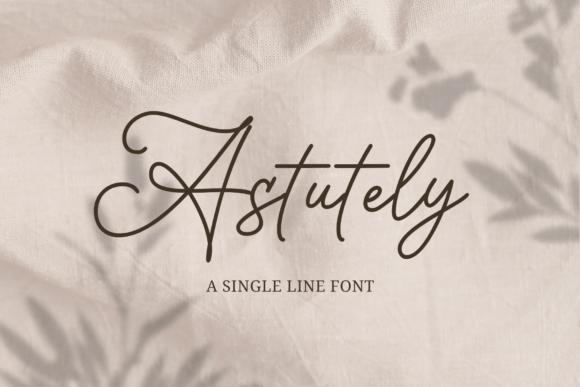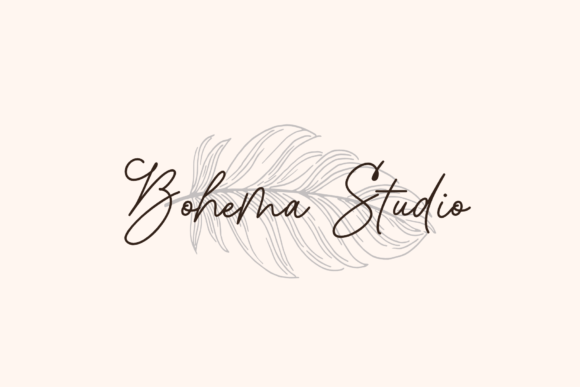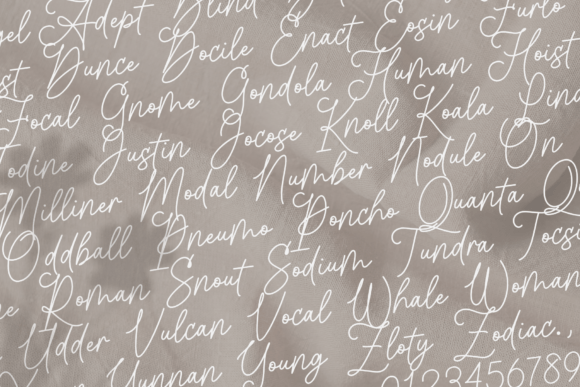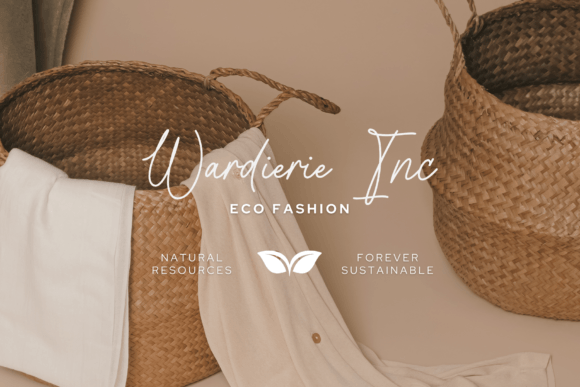
Astutely Font: Elegant Handwritten Script for Branding & Wedding Designs
About the Astutely Font
Explore the possibilities with Astutely Font, a font that offers both beauty and functionality. Astutely is an elegant, sketch and single-line handwritten font, described by a refined touch. Fall in love with its distinct and timeless style and use it to create spectacular designs!
Astutely’s elegant, sketched quality makes it ideal for projects requiring a touch of refined handwritten authenticity. It shines in headlines, short text blocks on branding materials, and as an accent font on invitations or packaging. Avoid using it for body text or long paragraphs; its single-line nature reduces readability at smaller sizes.
The font’s personality is sophisticated yet approachable. It would suit brands aiming for a premium feel with a personal touch, such as boutique hotels, high-end stationery, or artisan food products.
Pairing Astutely effectively depends on the desired emphasis. For a more modern feel, combine it with a clean sans-serif like Lato. To enhance its elegant quality, consider pairing it with a classic serif like Garamond or a delicate script like Great Vibes.
Astutely Font Usage Examples
Astutely Font Example